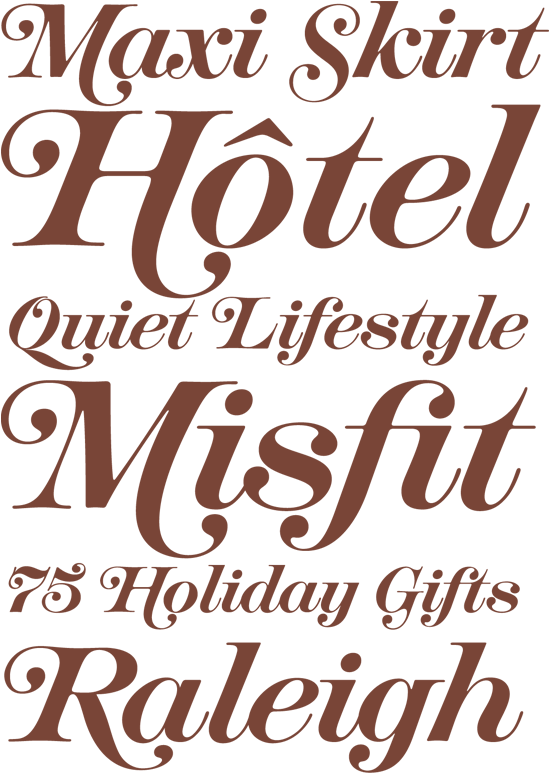
Photo-Lettering’s new West Italiano alphabet delivers suavely swashed berlusconian boldness.
Trilliumus Maximus Alphabeticus West Italiano and House for Vogue